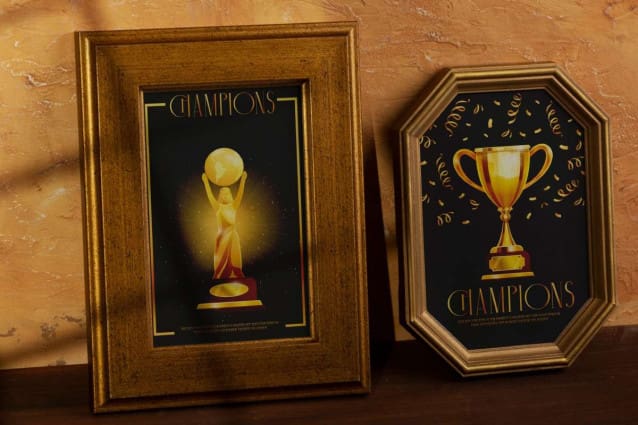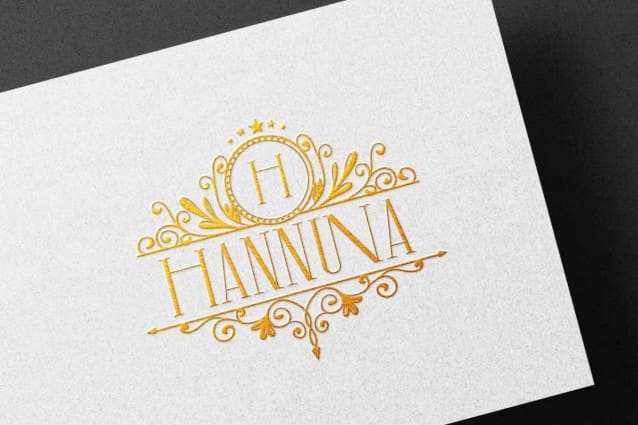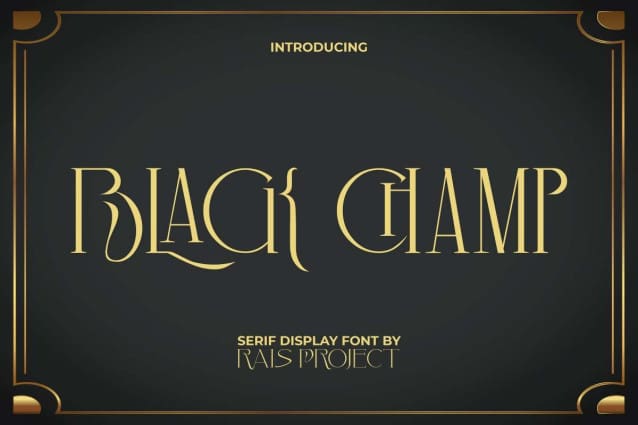
Black Champ Font
Black Champ Font is an elegant modern yet sporty serif display font with the looks that will makes your design so fancy! It will be good for any designs, such asbrand logo, business card, cover, custom design, invitation, label, magazine, menu, poster, product packaging, quote, signage, web, and more!
Black Champ Font includes ALL CAPS with different size between uppercase and lowercase, Numerals, large range of punctuation, and Ligature. This beautiful font will be suitable for various industries, such as accessories and jewelry, beauty product, café, fashion, florist, photography, printing, publishing, restaurant, wedding or event organizer, etc.